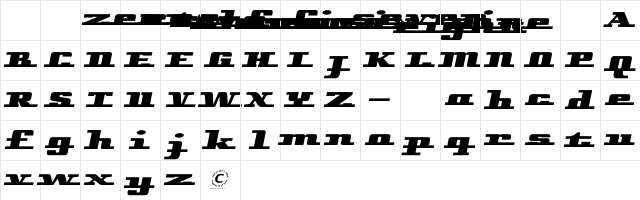
Aicklebiter Regular Free Font
Aicklebiter Regular
Designer: Tup Wanders
Design Context for Aicklebiter
Aicklebiter is a composed and adaptable typeface that performs quietly and consistently across a wide range of design contexts.